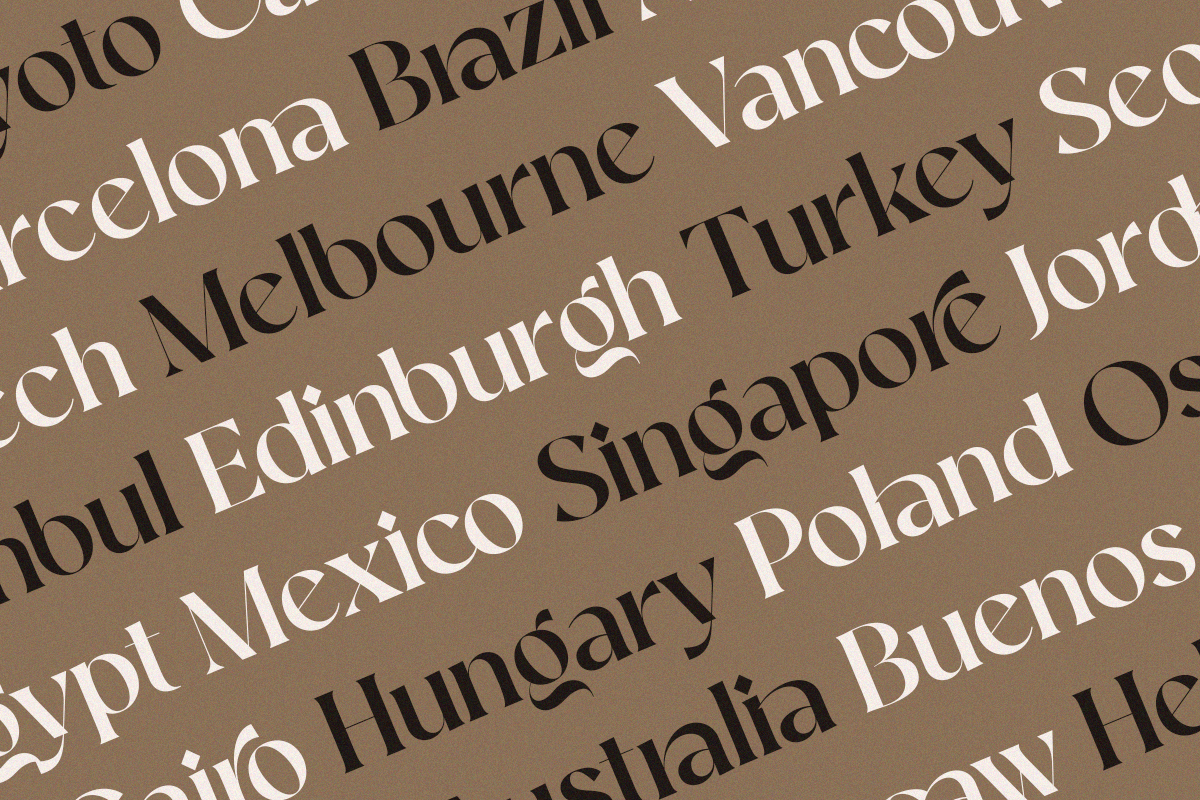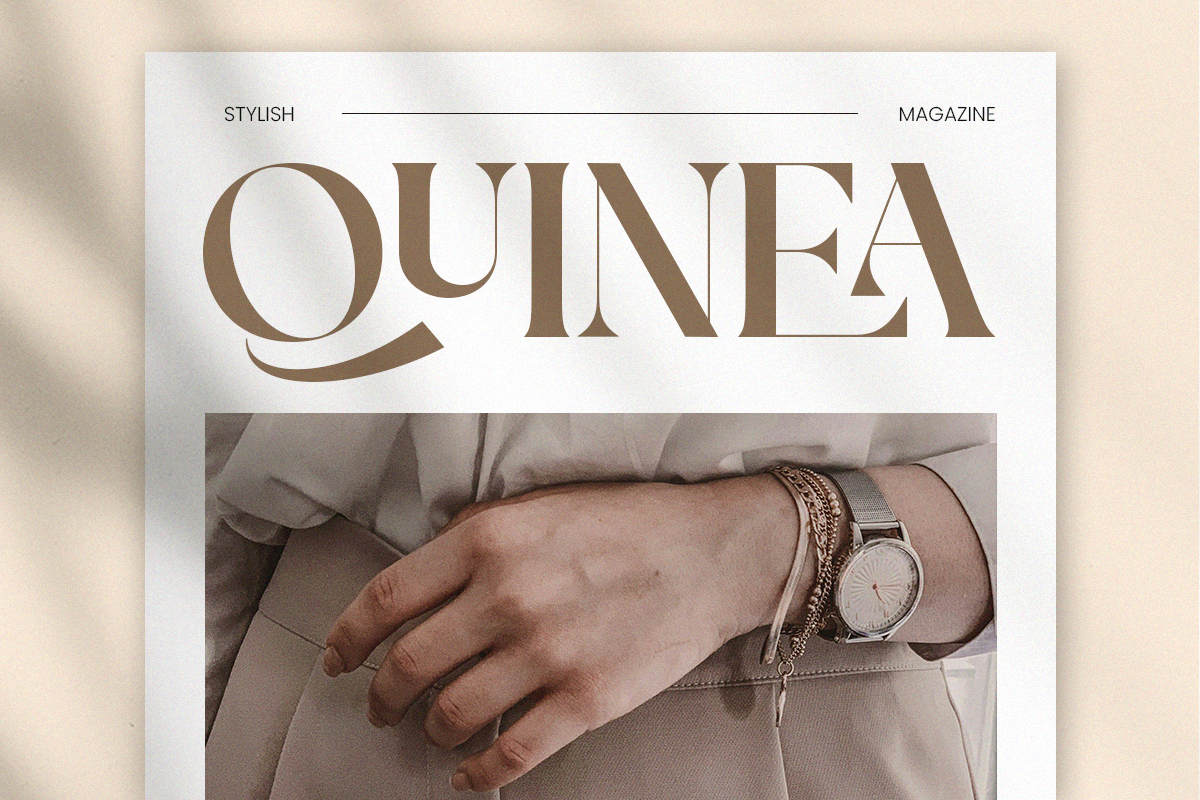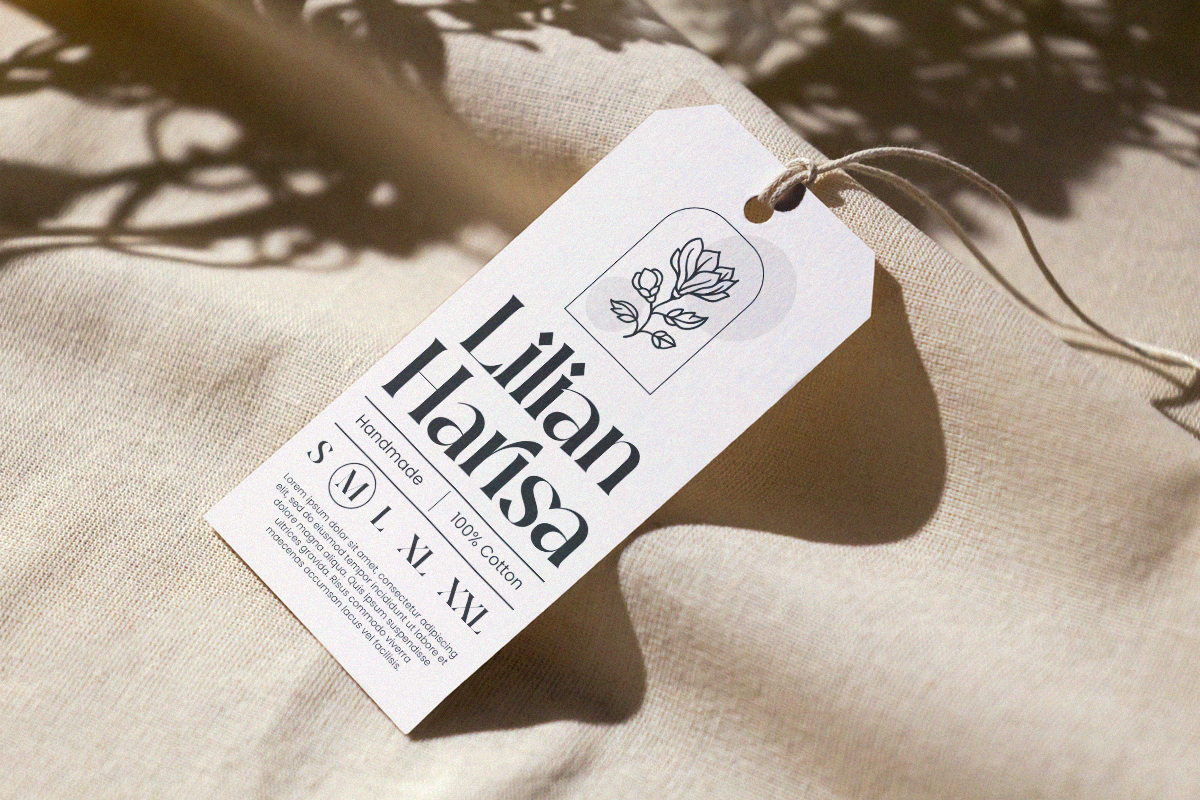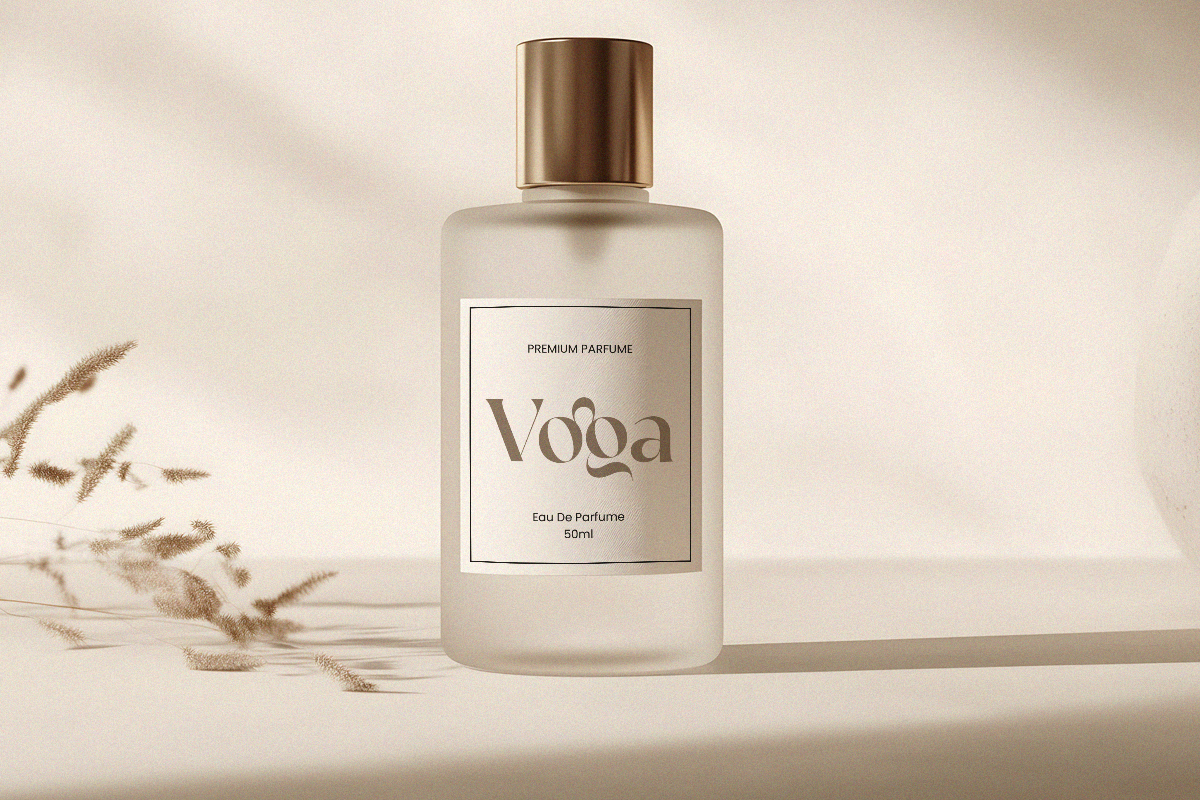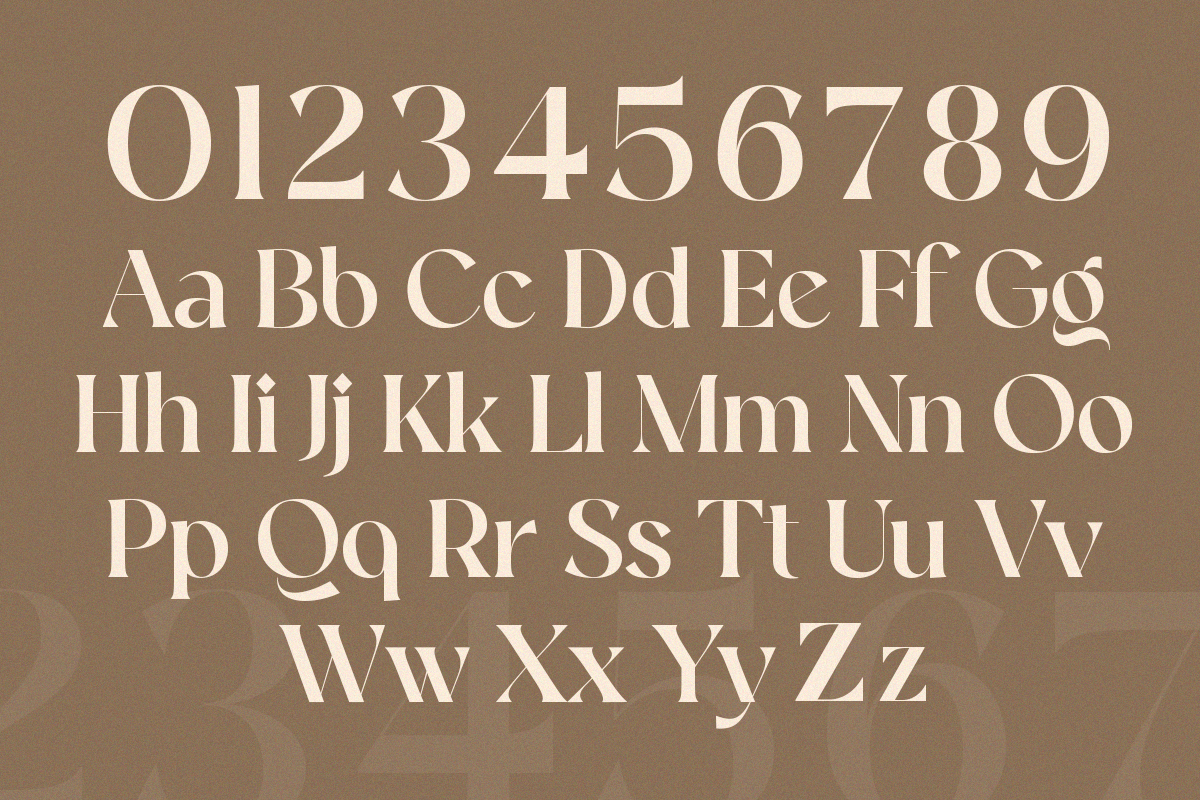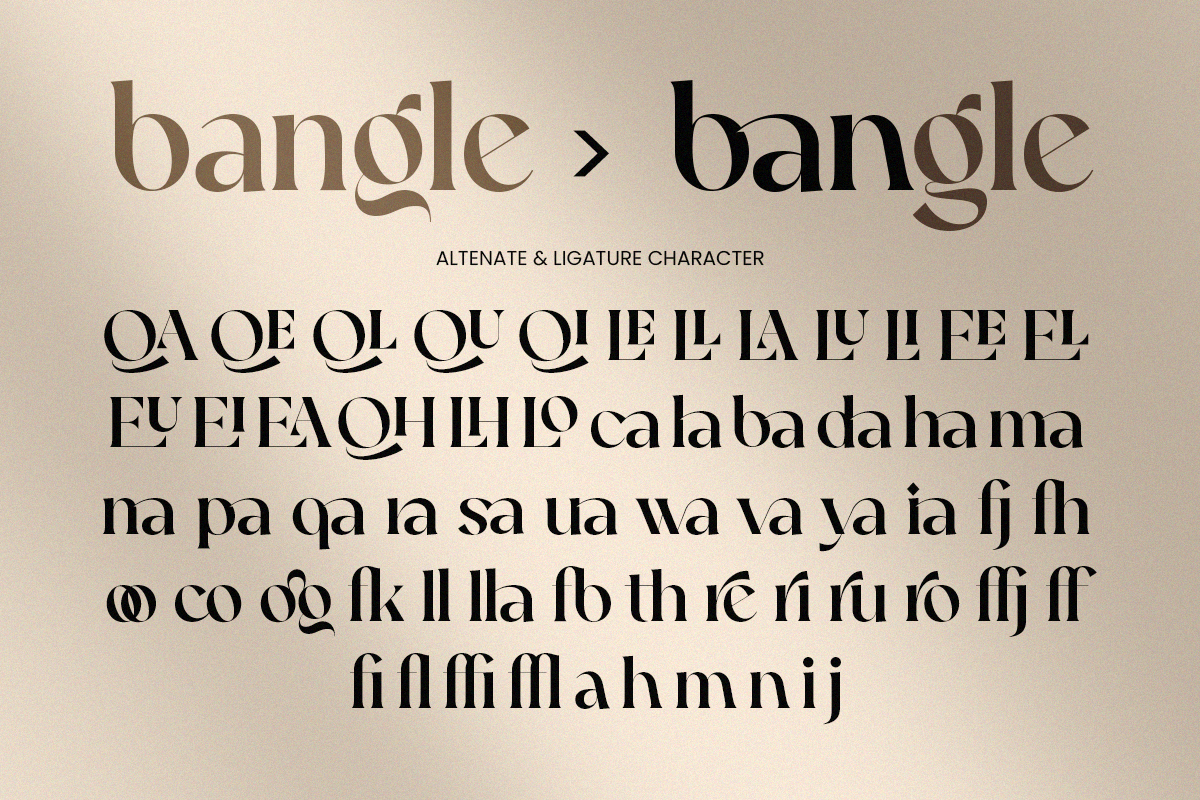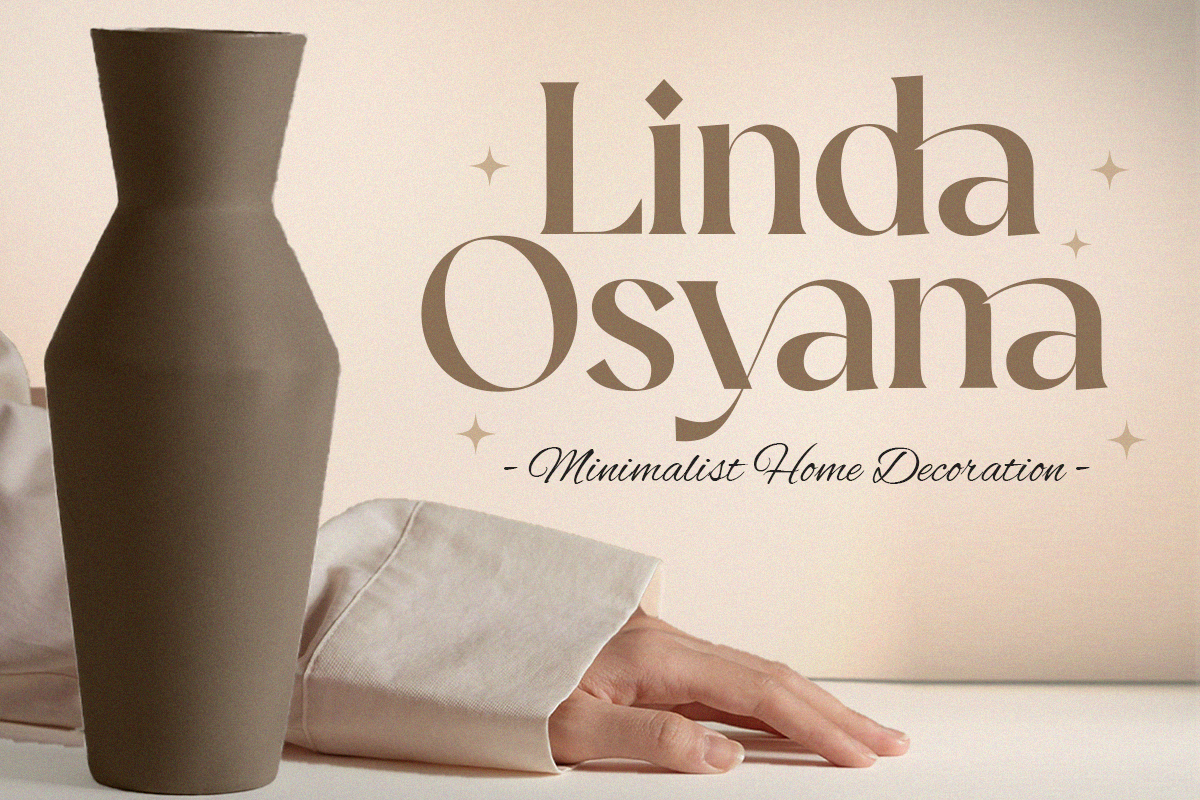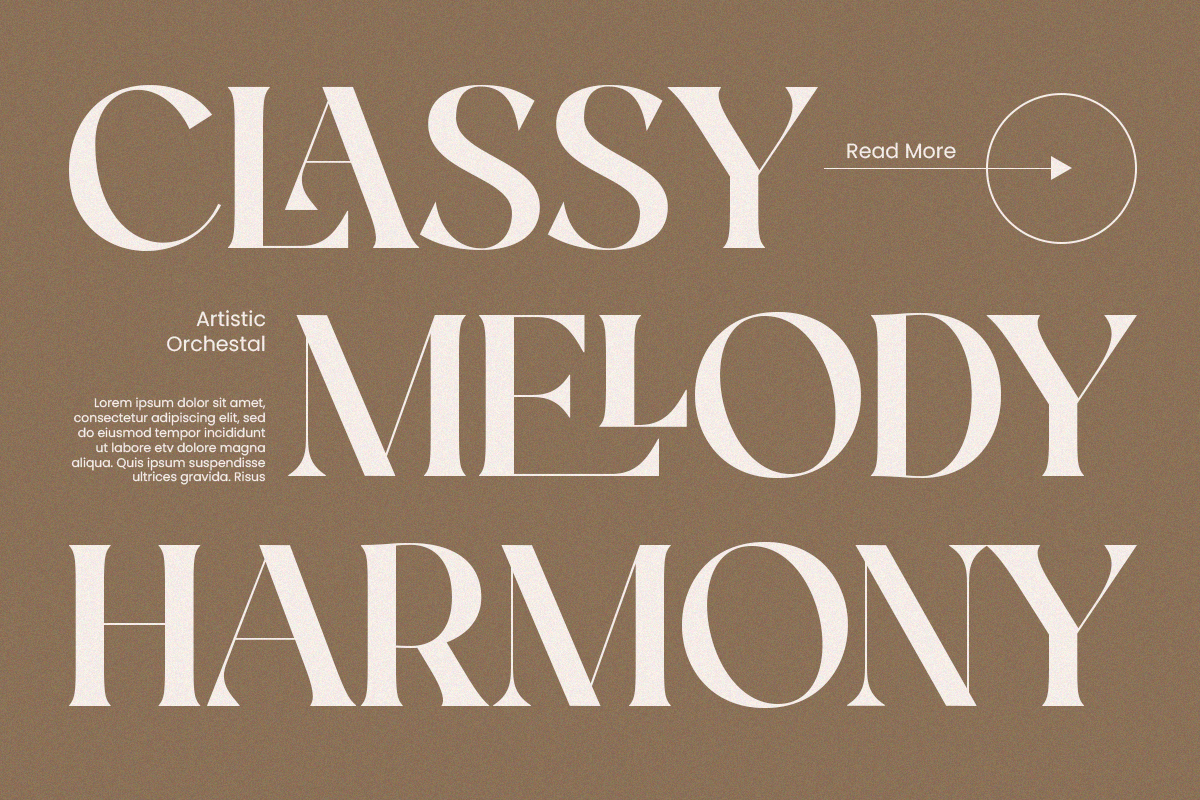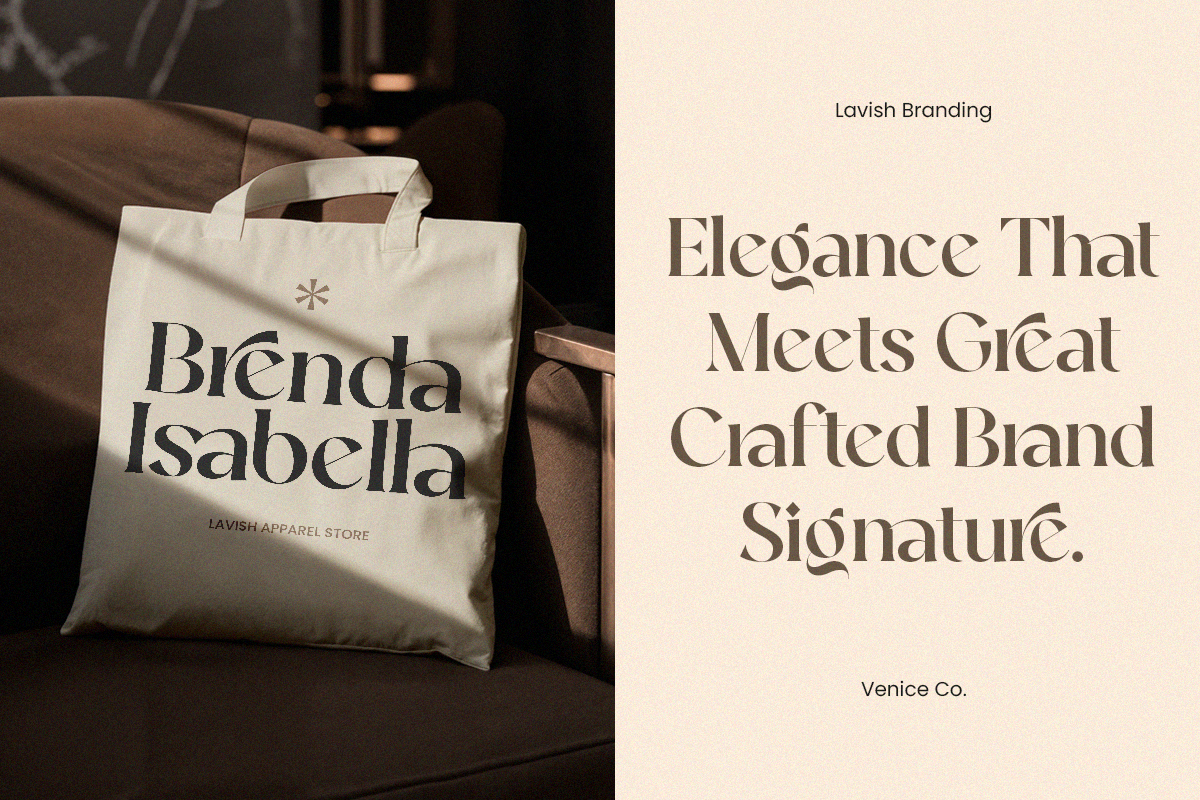
Quela A Serif that Speaks Timeless
Quela is a modern serif font that blends clean sophistication with timeless charm. Designed with balanced proportions, gentle curves, and subtle contrast, Quela delivers a refined and versatile look perfect for both contemporary and classic designs.
Ideal for branding, editorial layouts, wedding invitations, and high-end packaging, Quela brings an effortless elegance that enhances any project. Its modern yet classic character makes it stand out in headlines, logos, and creative compositions—ensuring your typography feels both fresh and enduring.